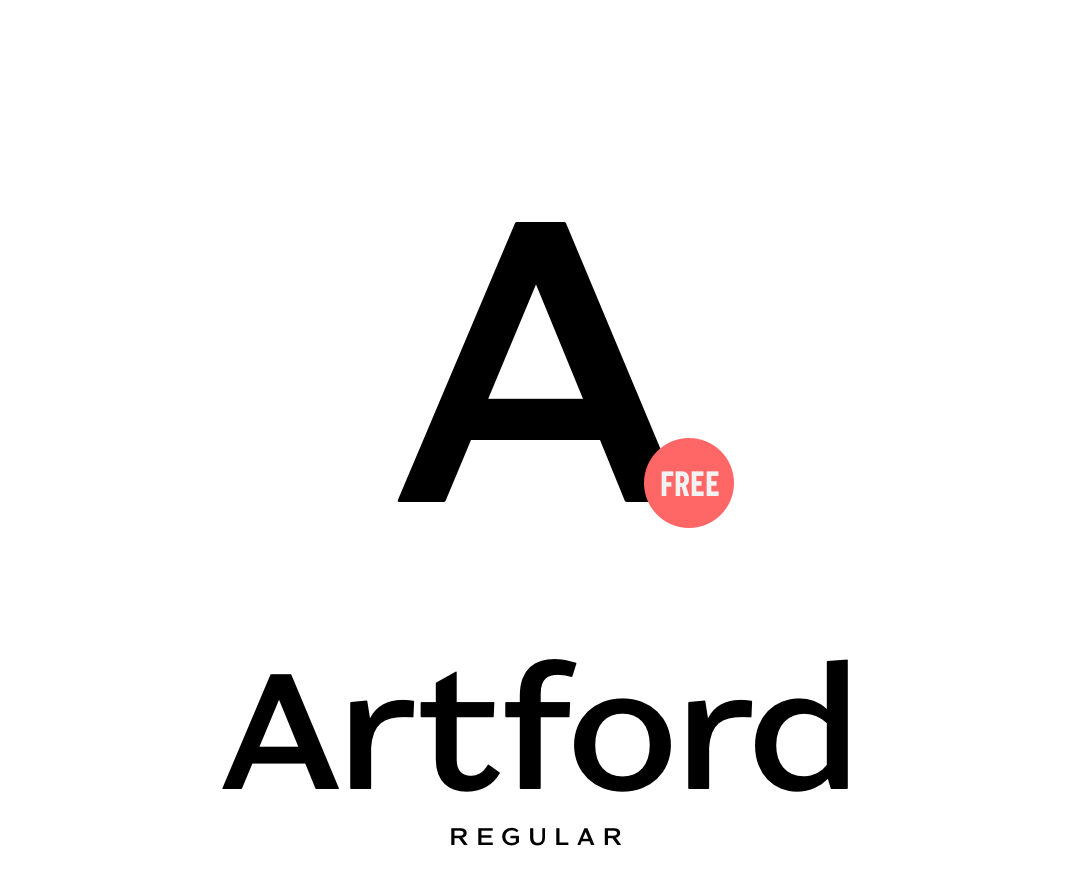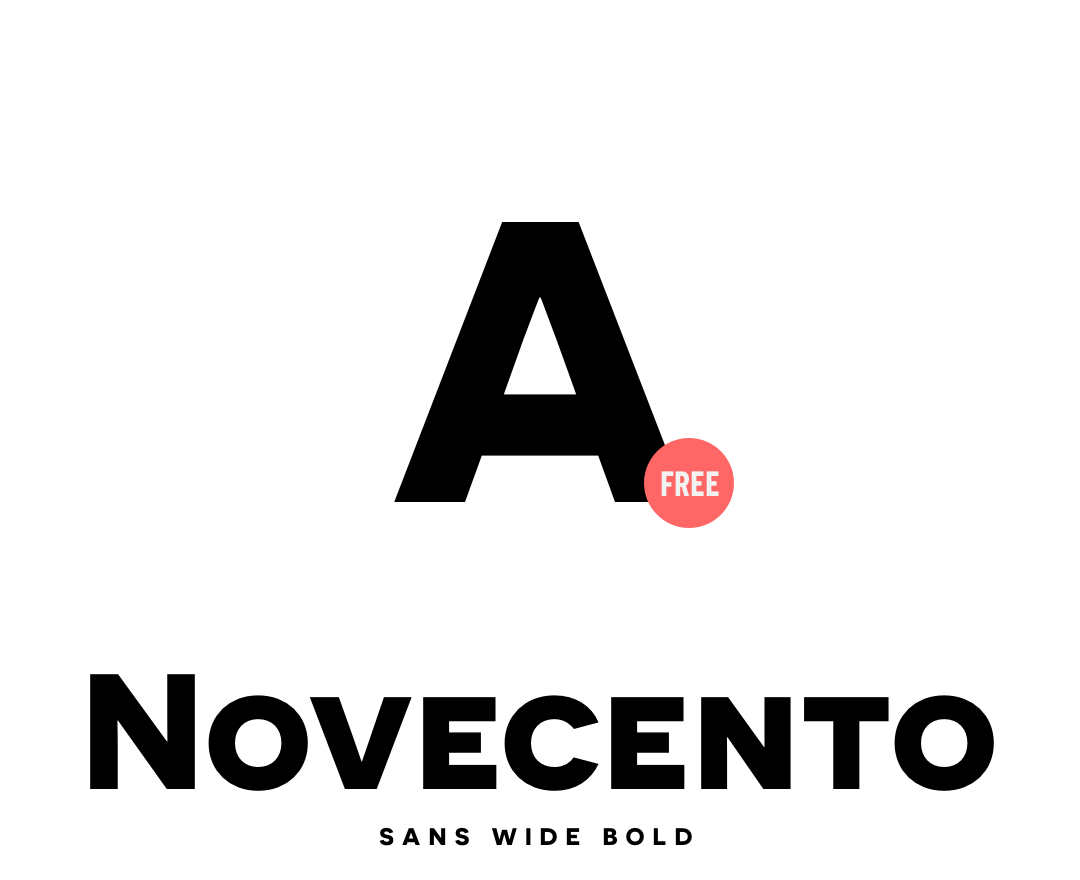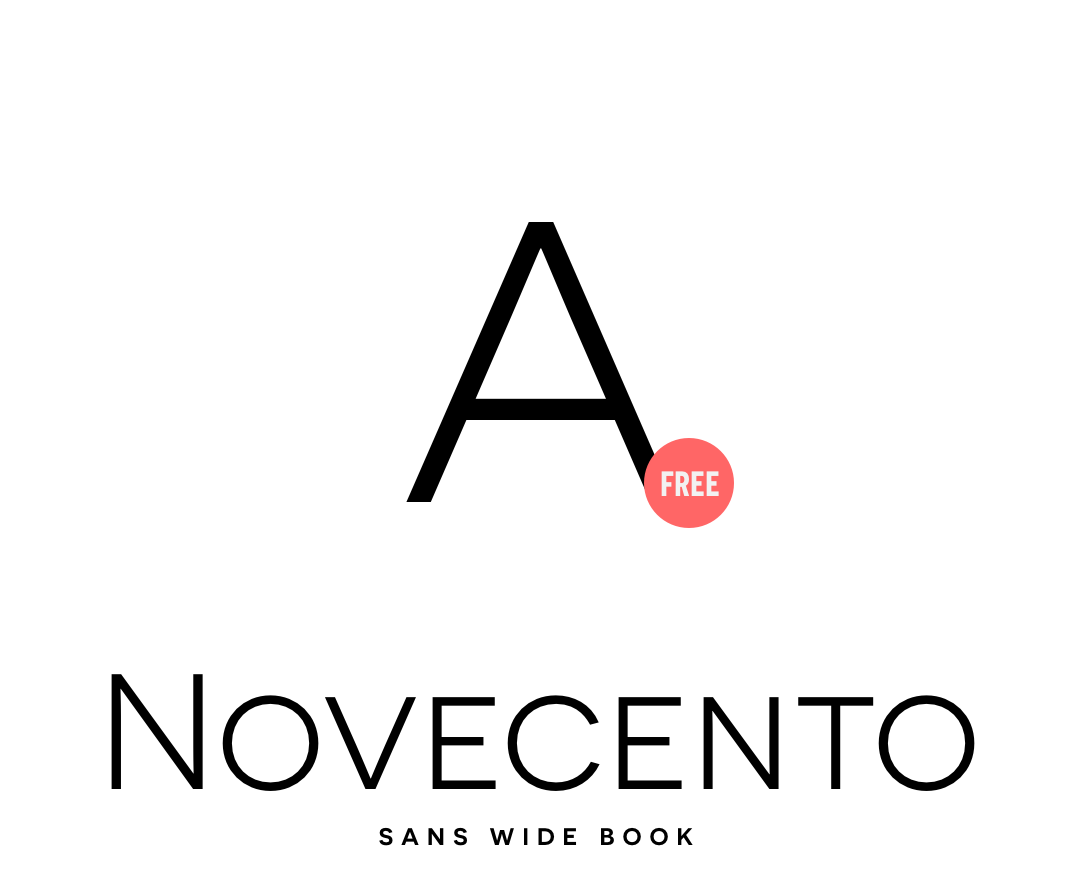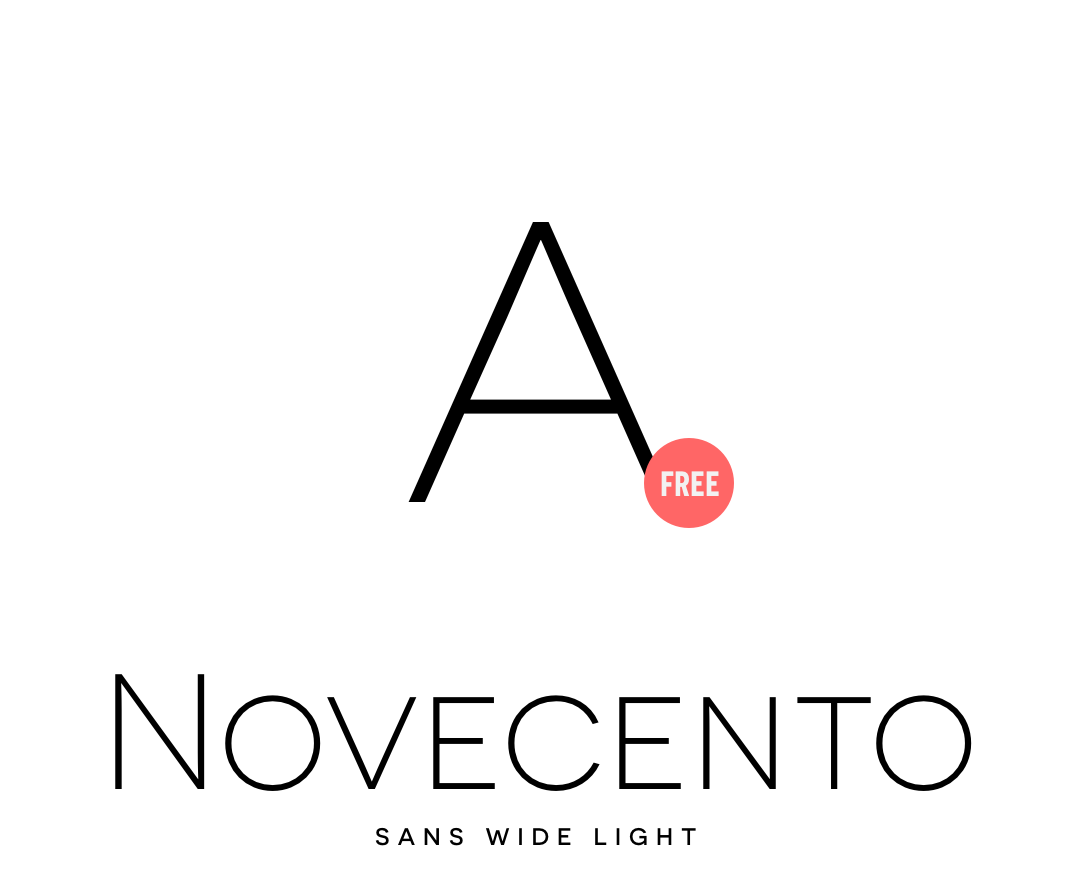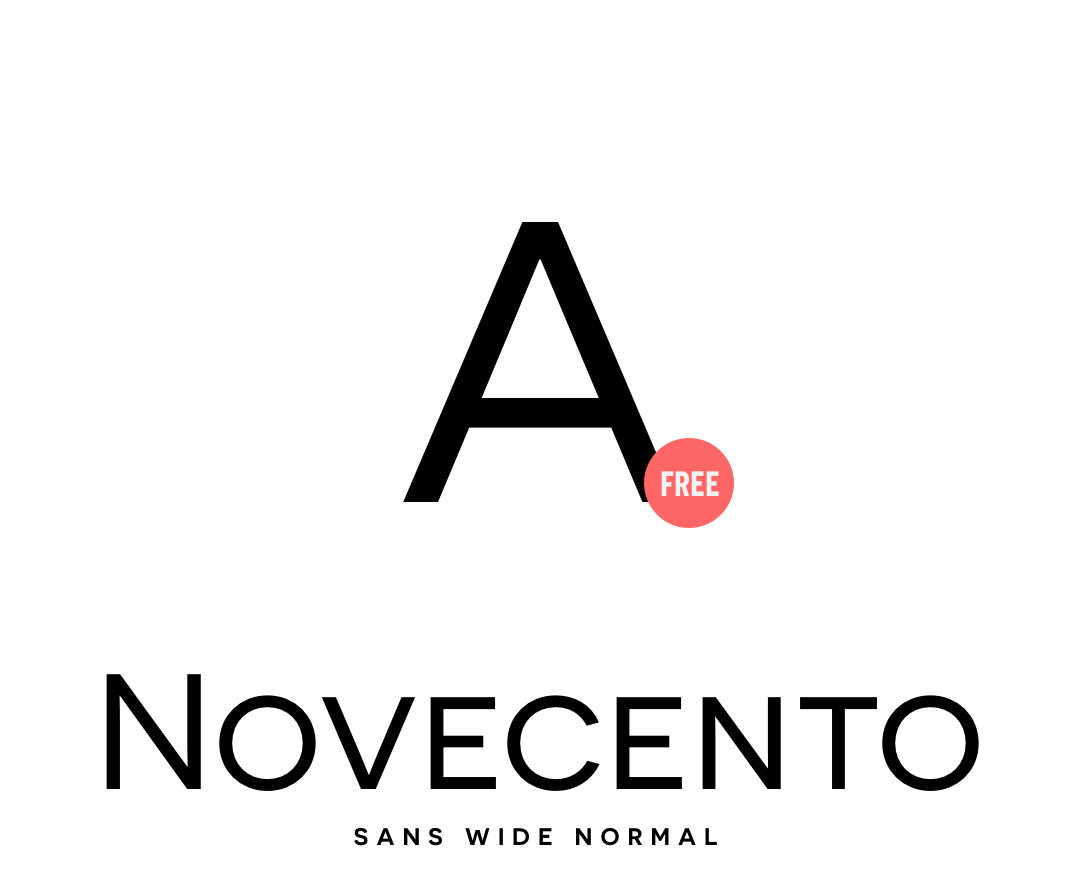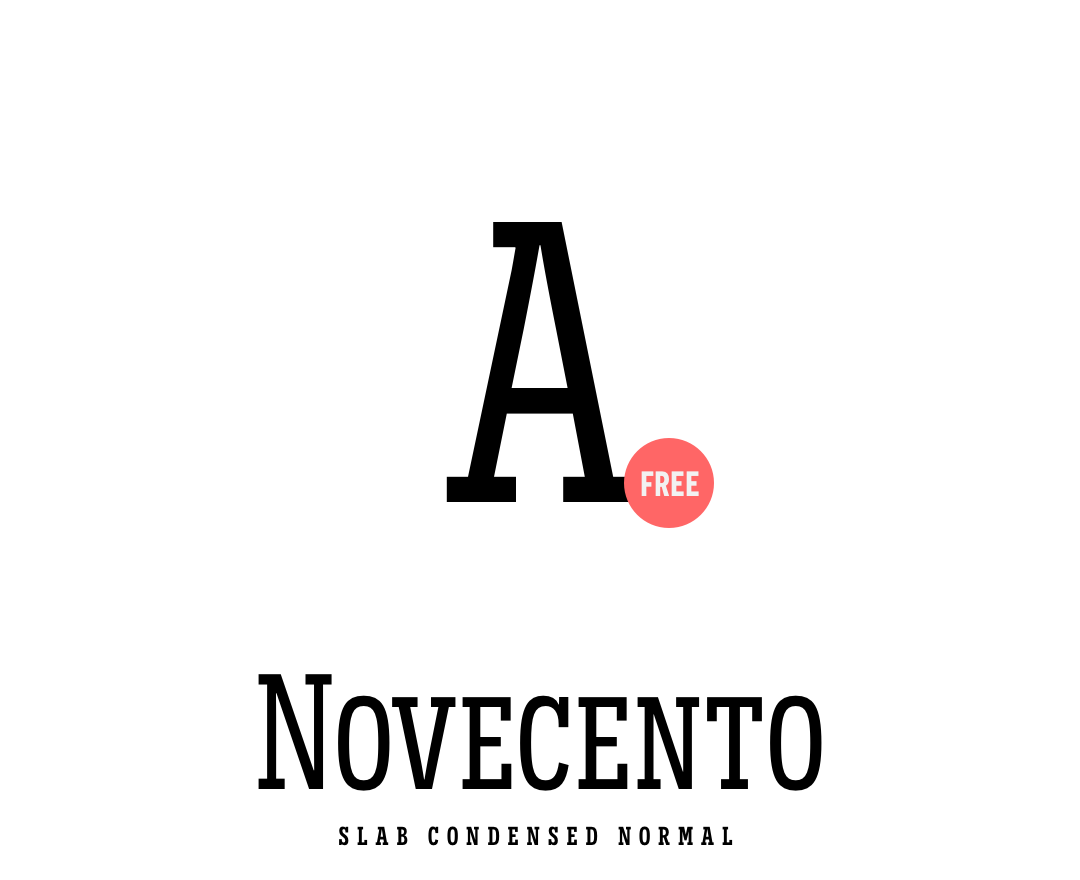
Artford Regular - Free versatile geometric sans-serif font ideal for branding, editorial and web design Discover Artford
Novecento Slab Condensed Normal - Free geometric serif font for display typography Discover Novecento Slab
Novecento Slab Wide Normal - Free geometric serif font for impactful commercial design Discover Novecento Slab
Novecento Sans Wide Light - Free geometric sans-serif font for minimalist luxury branding Discover Novecento Sans
Novecento Sans Wide Book - Free geometric sans-serif font for clean modern editorial design Discover Novecento Sans
Novecento Sans Wide Normal - Free geometric sans-serif font for contemporary branding and web design Discover Novecento Sans
Novecento Sans Wide Medium - Free geometric sans-serif font for impactful headlines and signage Discover Novecento Sans
Novecento Sans Wide DemiBold - Free geometric sans-serif font for attention-grabbing display typography Discover Novecento Sans
Novecento Sans Wide Bold - Free geometric sans-serif font for powerful branding and posters Discover Novecento Sans
Full character set
All our fonts, included the free ones, are full-featured.
76+ Latin idioms supported, alternate glyphs, OpenType features.